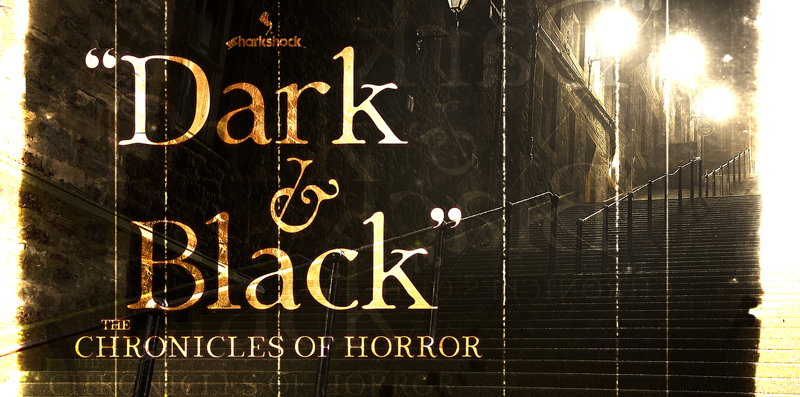
Preview and download Dark & Black Font. Created by Sharkshock in Basic Serif styles with Free for personal use license.
OTF: Dark & Black Dennis Ludlow 2017 all rights reserved by Sharkshock dennis@sharkshock.net Deep within the twisted fabric of terror comes a font so spine tingling it will chill you to the very core. Dark & Black is a titling serif modeled after classic Roman letters with subtle levels of distress; notably slightly warped terminals and scratches. At small sizes or from far away it appears normal but the closer you get the more you’ll wish you kept your distance. Basic Latin, Extended Latin, numbers, punctuation, and kerning are included in the full version. Basic Latin and punctuation is included in the demo. Use it for a book cover, horror movie poster, or Halloween decorations. If you’d like the full version (which includes Outlines) for personal use send $25 USD to this email address. Please note that this $25 does not constitute a commercial license of any kind. Visit www.sharkshock.net/license for information on licensing. Thank you for your support! visit www.sharkshock.net for more and take a bite out of BORING design! Tags: serif, informal, scary, spooky, eerie, terror, horror, spook, Halloween, monster, eroded, distorted, irregular, thin, wispy, French, German, Spanish, European, accents, diacritics, logo, project, scrapbooking, movies, movie, poster, book, publishing, band, ad, chilling |